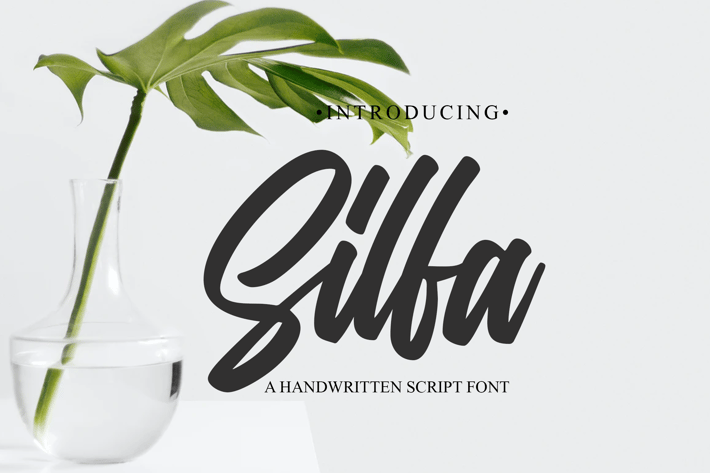
Silfa - Script Font
Silfa Script is a handwritten font that is perfect for branding, social media headers, product packaging, wedding invites and cards and so on. This font is completely perfectly re-create natural handwriting.
Silfa Script includes Upper and Lowercase Basic Characters, Numbers, and Punctuation.
Silfa Script is also available for Western European, Central European and South Eastern European Languages. You can check your language typing characters in the text box below.
Silfa Script includes Upper and Lowercase Basic Characters, Numbers, and Punctuation.
Silfa Script is also available for Western European, Central European and South Eastern European Languages. You can check your language typing characters in the text box below.